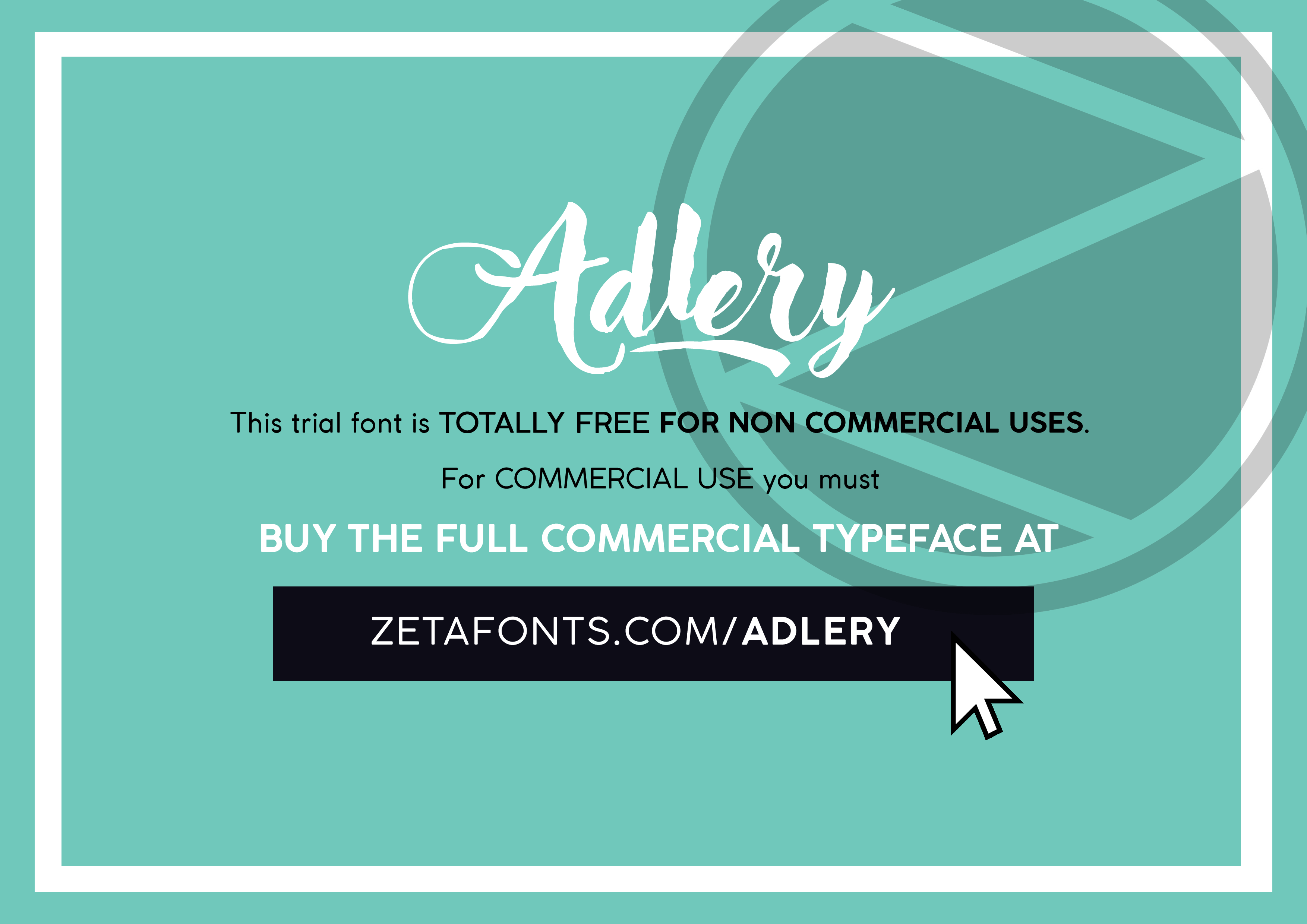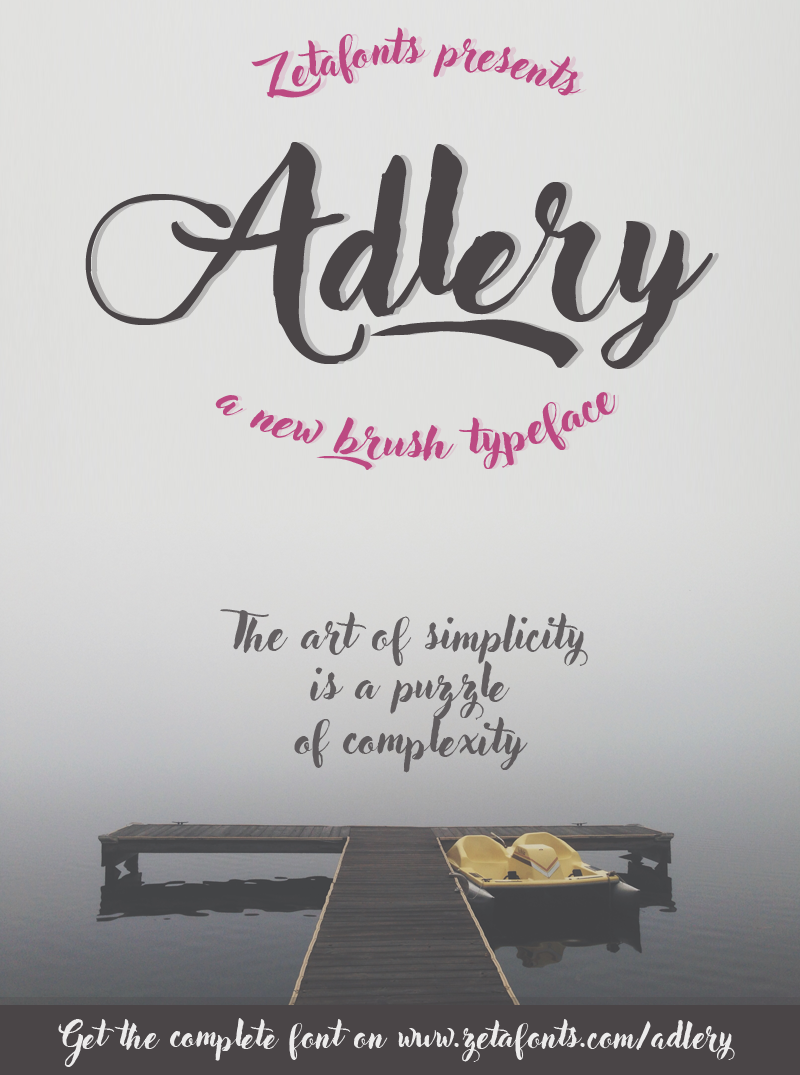
Adlery
Adlery, a brush typeface by Cosimo Lorenzo Pancini, is ideal for display purposes. It combines a handmade touch with enhanced readability at medium sizes. The font offers three styles (Basic, Swash, and Blockletter Uppercase) and features alternating double sets of lowercase alphabets to ensure uniqueness in repeated letters.